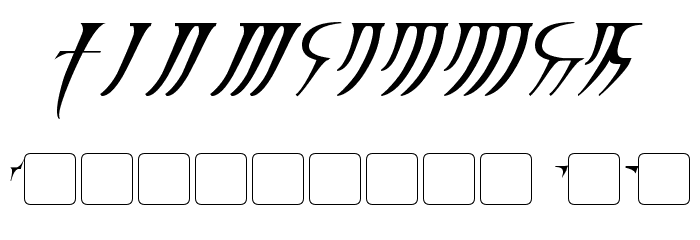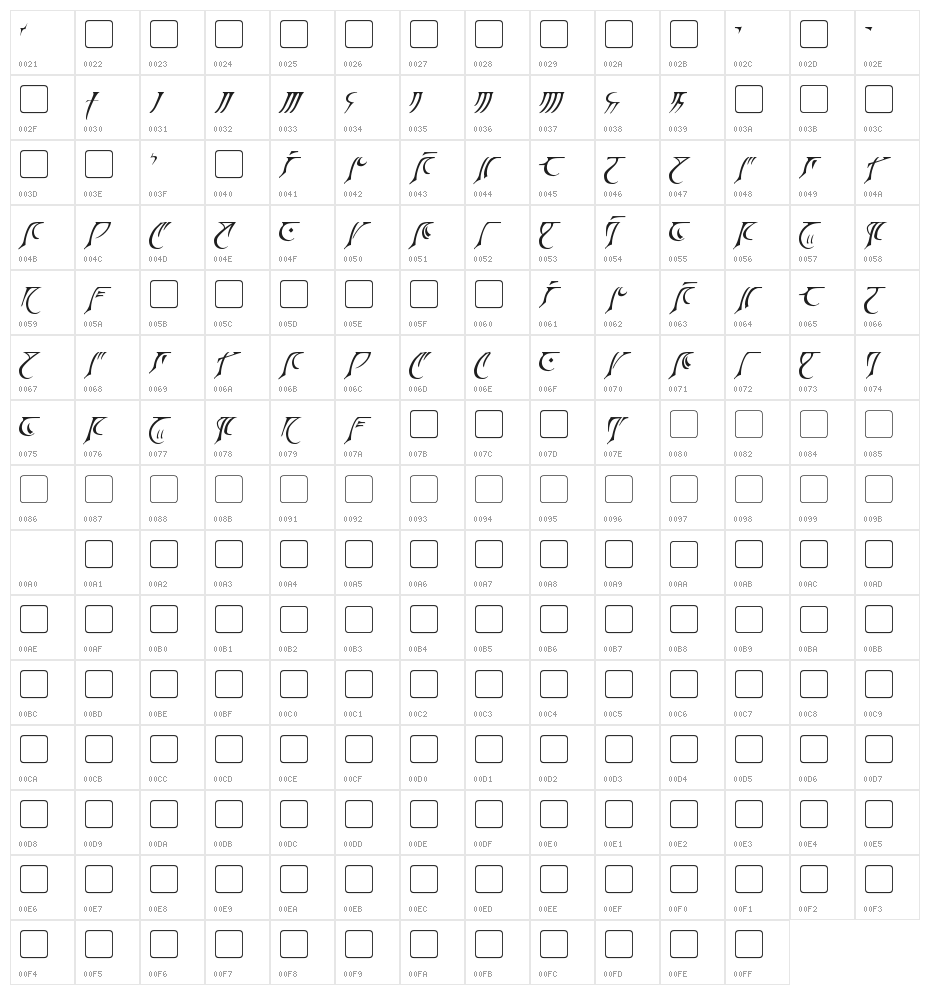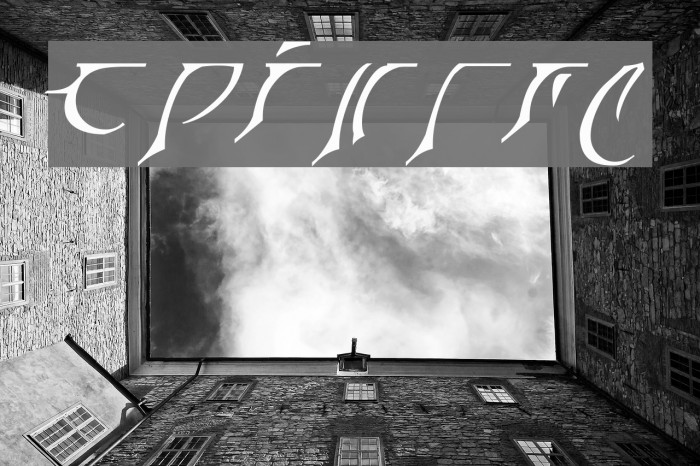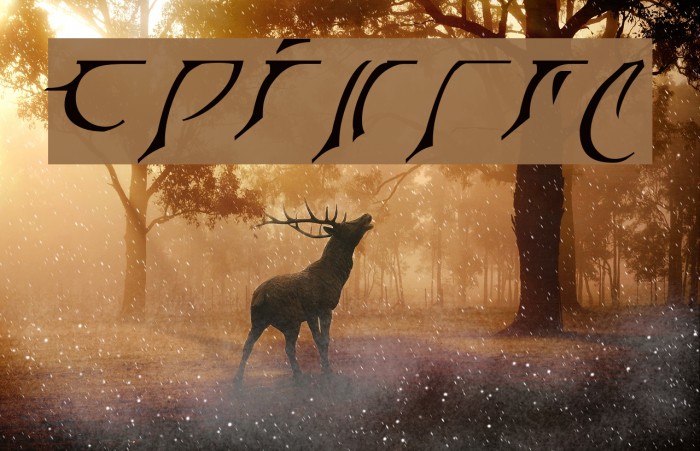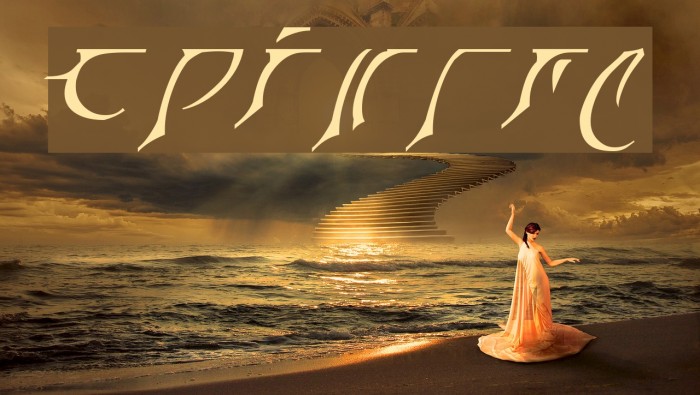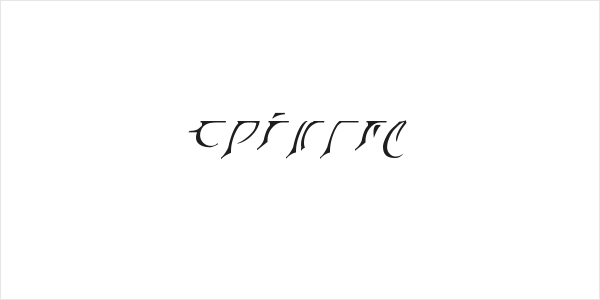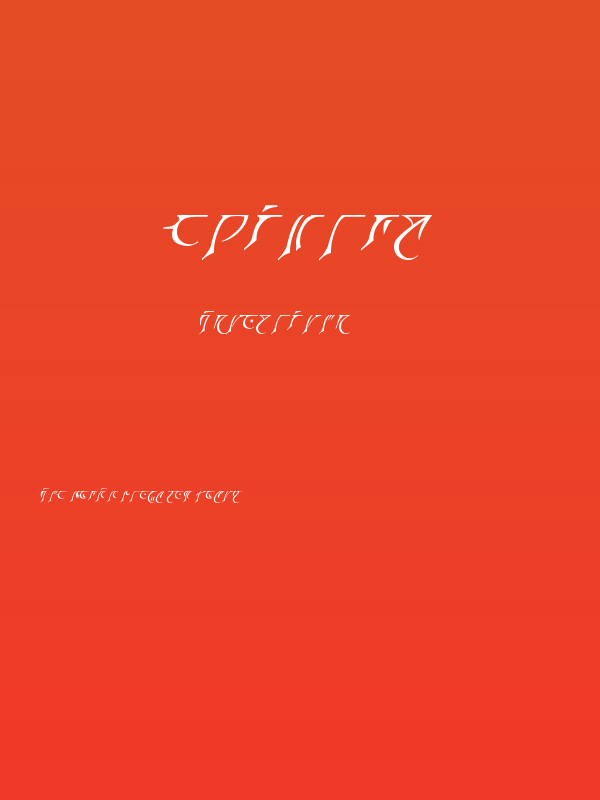
Eladrin Font
Eladrin Description
This font features a unique and artistic design with a calligraphic flair, characterized by sharp, angular strokes and elegant curves. The characters exhibit a sense of motion and fluidity, reminiscent of ancient scripts or fantasy-themed writing. The uppercase and lowercase letters maintain a consistent style, with distinctive serifs and elongated forms that create a dramatic visual impact. The numerals and special characters follow the same stylistic approach, ensuring a cohesive look across all elements.
Use CaseLogos, Titles, Decorative Text
Proposed ProjectsIdeal for fantasy-themed projects, book covers, game titles, or any creative work requiring a mystical or ancient aesthetic.